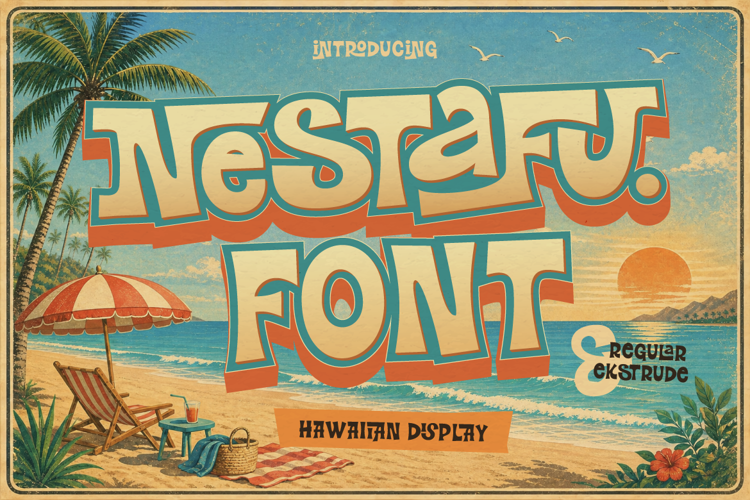
Nestafu Font
Soak up the sun and bring retro island vibes to your graphics with Nestafu, a fun and bold Hawaiian display font. Inspired by vintage surf posters, beach clubs, and sunny Hawaiian getaways, Nestafu features playful letterforms with wavy, organic curves that capture the carefree energy of summer.
Perfect for:
- Summer Beach Party Posters, Flyers & Festival Banners
- Tropical Drink Packaging, Juice Cans & Coconut Water Labels
- Surf Apparel, T-shirt Merch & Beachwear Logos
- Hawaiian Restaurant Menus, Tiki Bar Branding & Signage
- Vacation Travel Postcards, Retro Stickers & Social Media Graphics